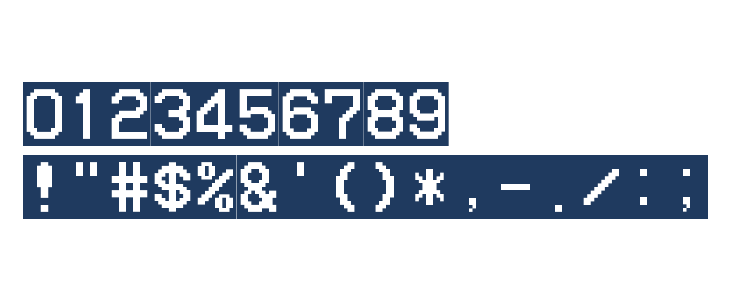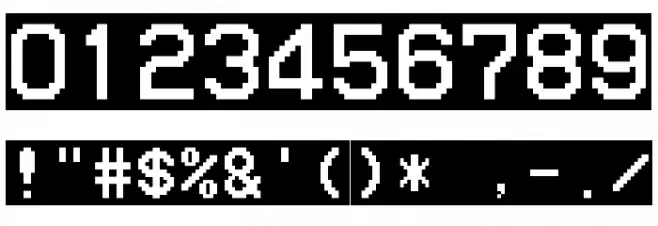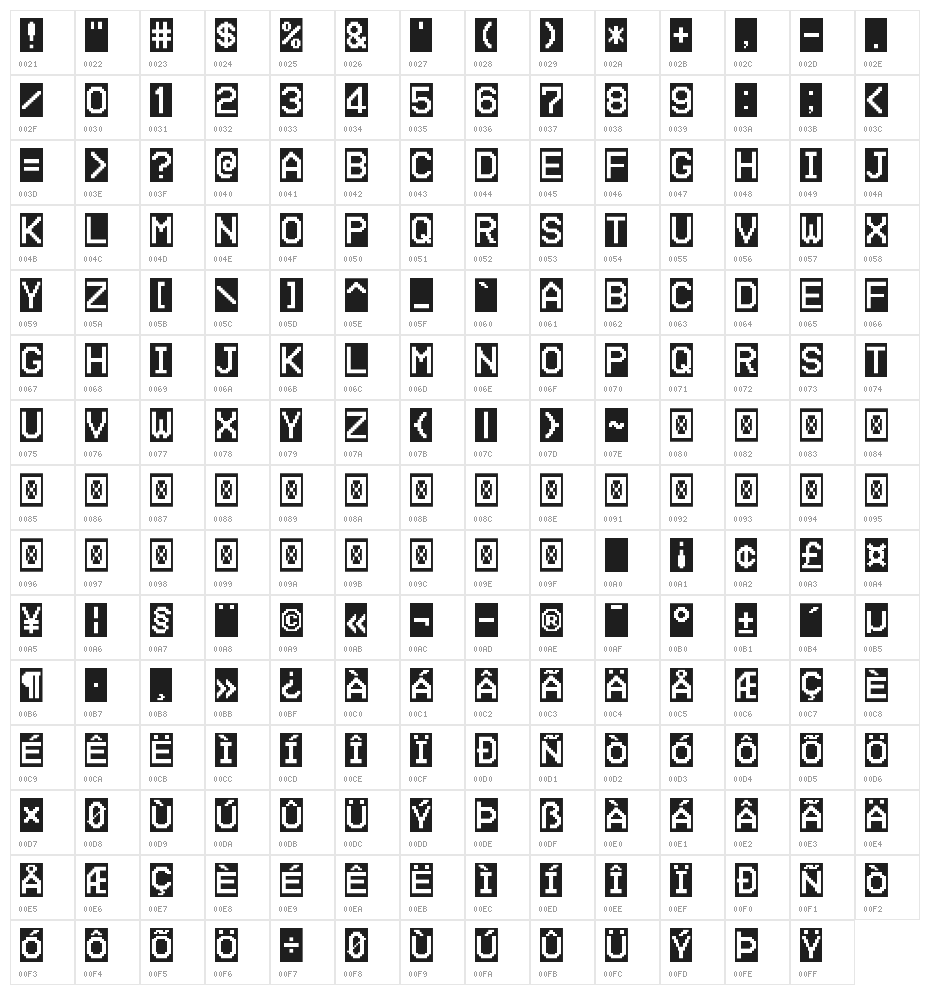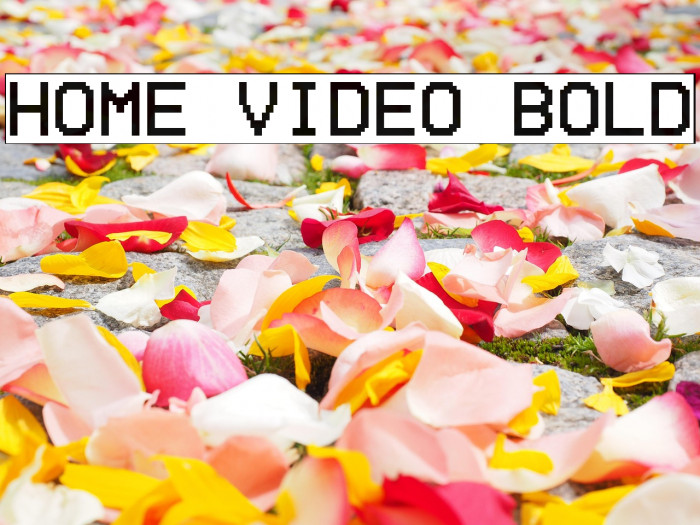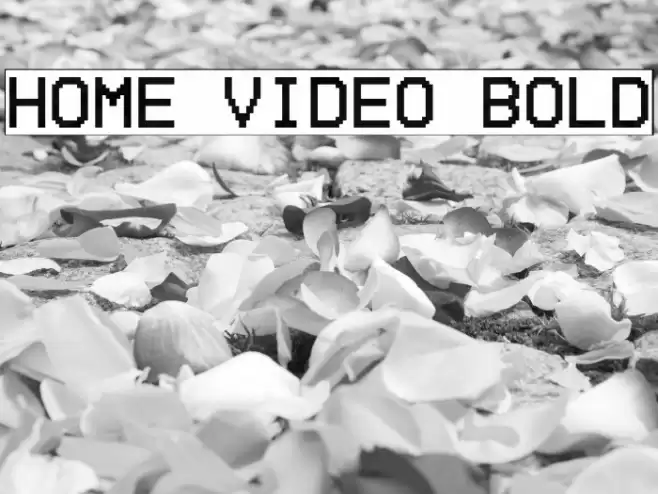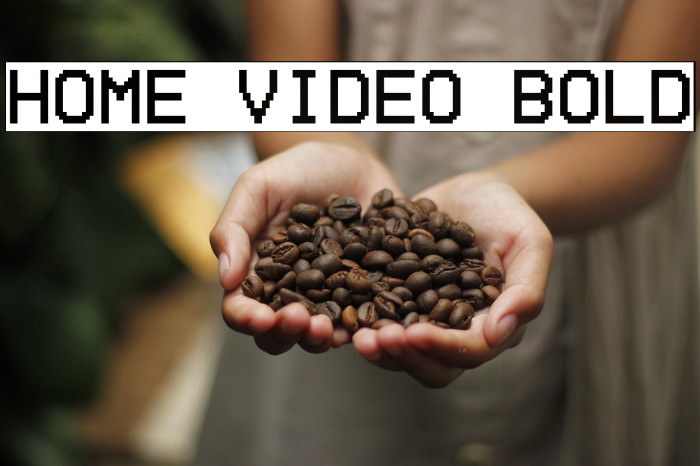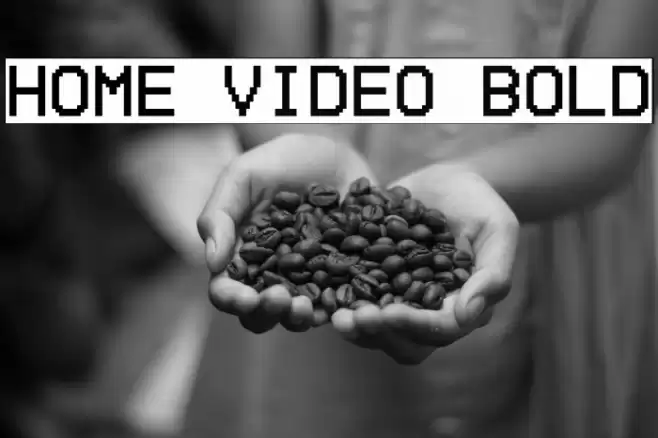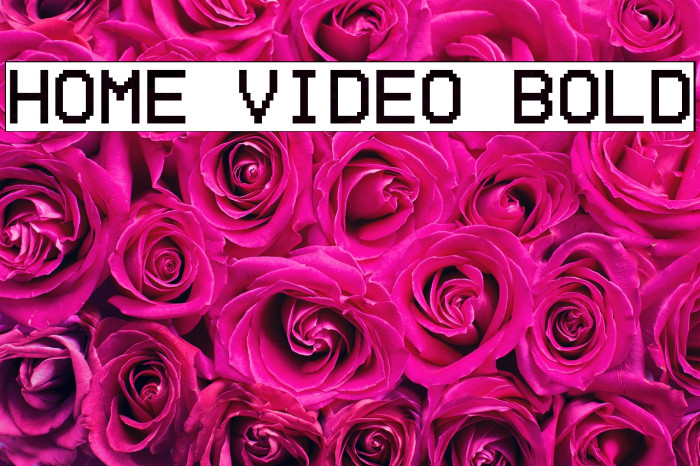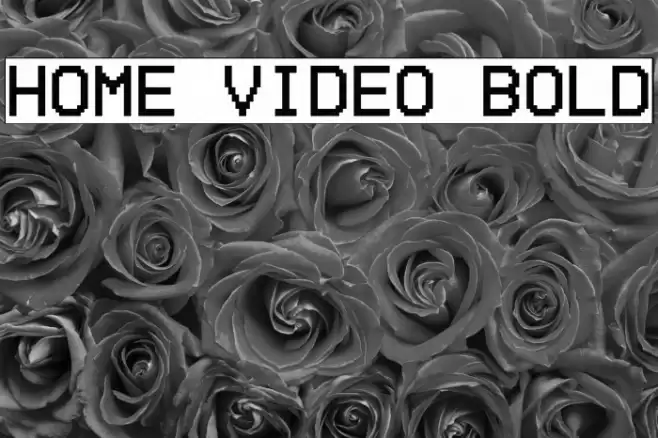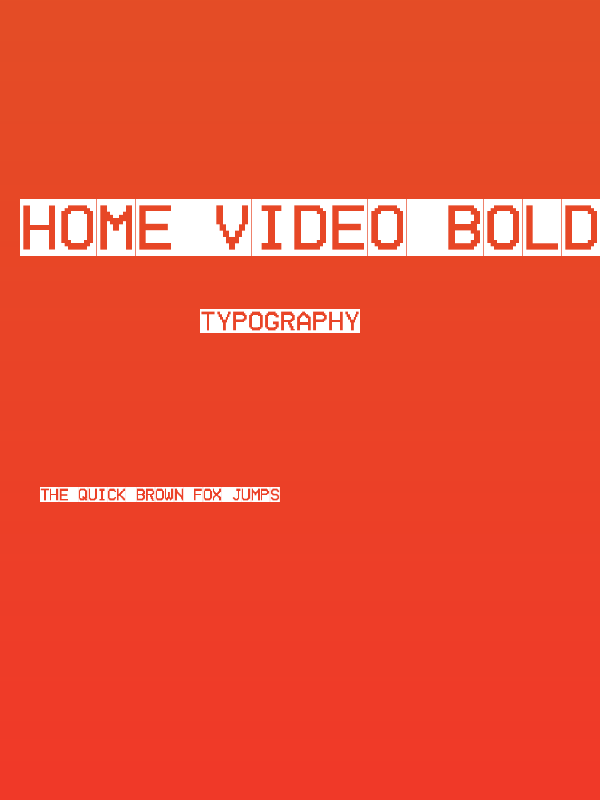
Home Video Bold Font
Home Video Bold Description
This font features a bold, pixelated style reminiscent of retro video games and early computer graphics. The characters are blocky and geometric, with a consistent thickness that gives them a strong, impactful appearance. The uppercase and lowercase letters maintain a uniform height, enhancing the font's structured and cohesive look. Numbers and special characters follow the same design principles, ensuring visual harmony across all elements. The font's nostalgic aesthetic makes it ideal for projects that aim to evoke a sense of vintage digital culture.
| Proposed Projects | Ideal for video game designs, retro-themed posters, digital art projects, and any creative work that seeks to capture the essence of early computer graphics. |